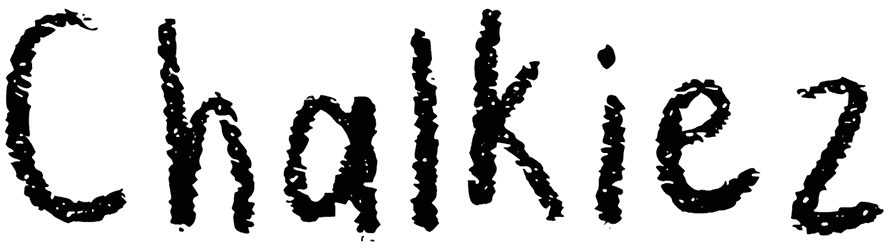
Chalkiez Font
Here, a handmade painting style ignites the power to improve your street or cozy design in a gorgeous way. Chalkiez, looking inspired by a brush vibe and originating from trash font, can bring a nostalgic chalk drawing on blackboards to life.
So, to raise the occasion of writing design like posters, stationery design, or more, this chalk font does the trick, just be mindful of the lack of numbers.